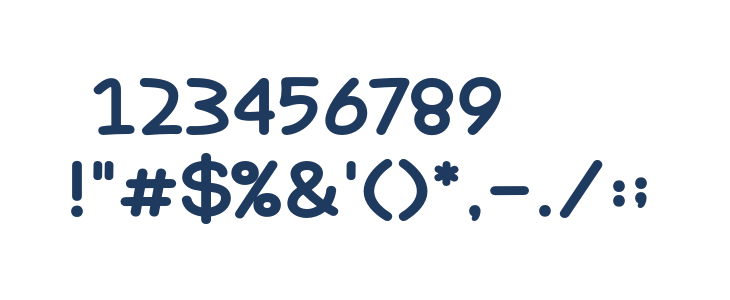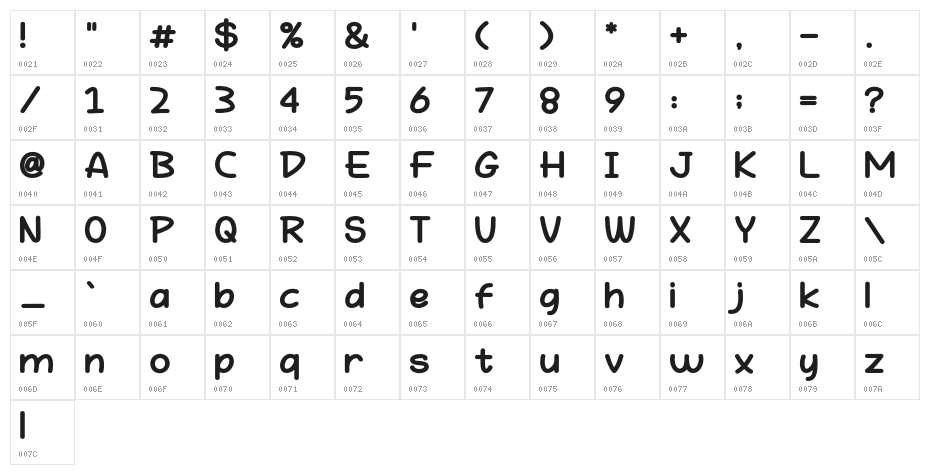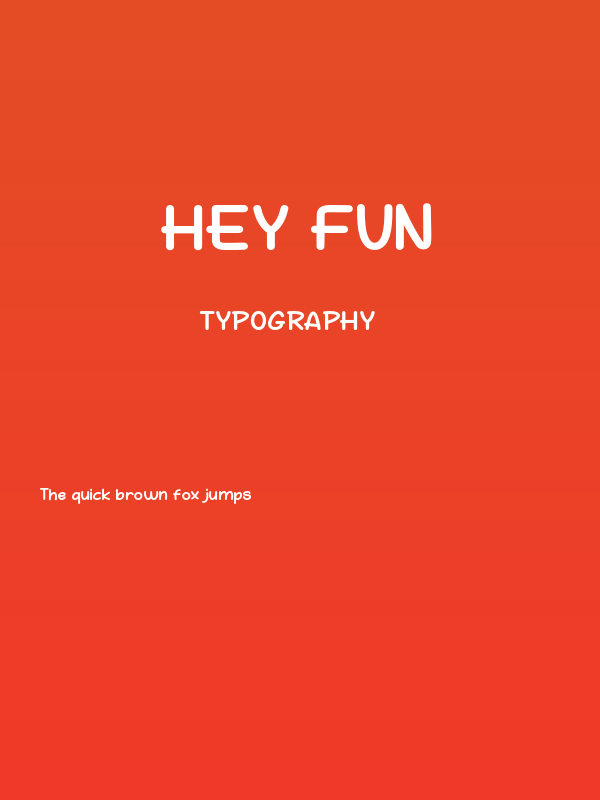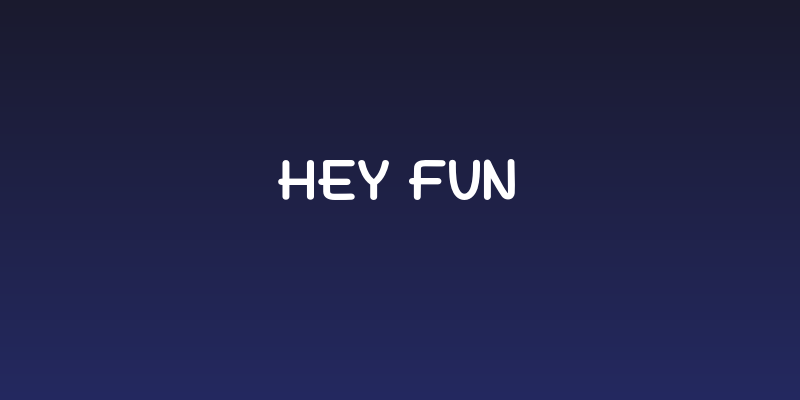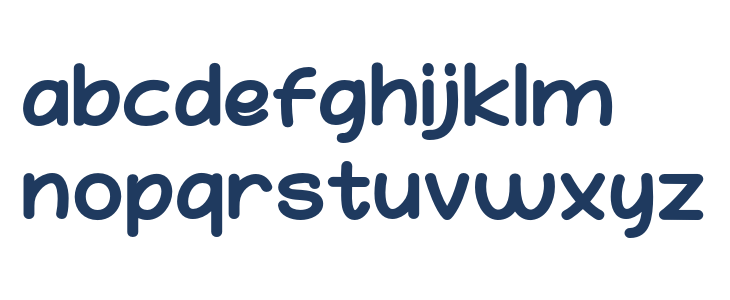
Hey Fun Font
Hey Fun Description
This playful and rounded font exudes a friendly and approachable vibe, characterized by its smooth curves and consistent stroke width. The letters are bold and slightly condensed, giving them a compact appearance while maintaining readability. The font's whimsical style is evident in its rounded terminals and gentle curves, making it ideal for projects that require a touch of fun and informality. The numerals and special characters are designed to match the overall playful aesthetic, ensuring uniformity across all text elements.
| Width | Condensed |
| Overall Style | Playful |
| Use Case | Headlines, Logos, Informal Text |
| Proposed Projects | Ideal for children's books, playful branding, casual invitations, and social media graphics. |